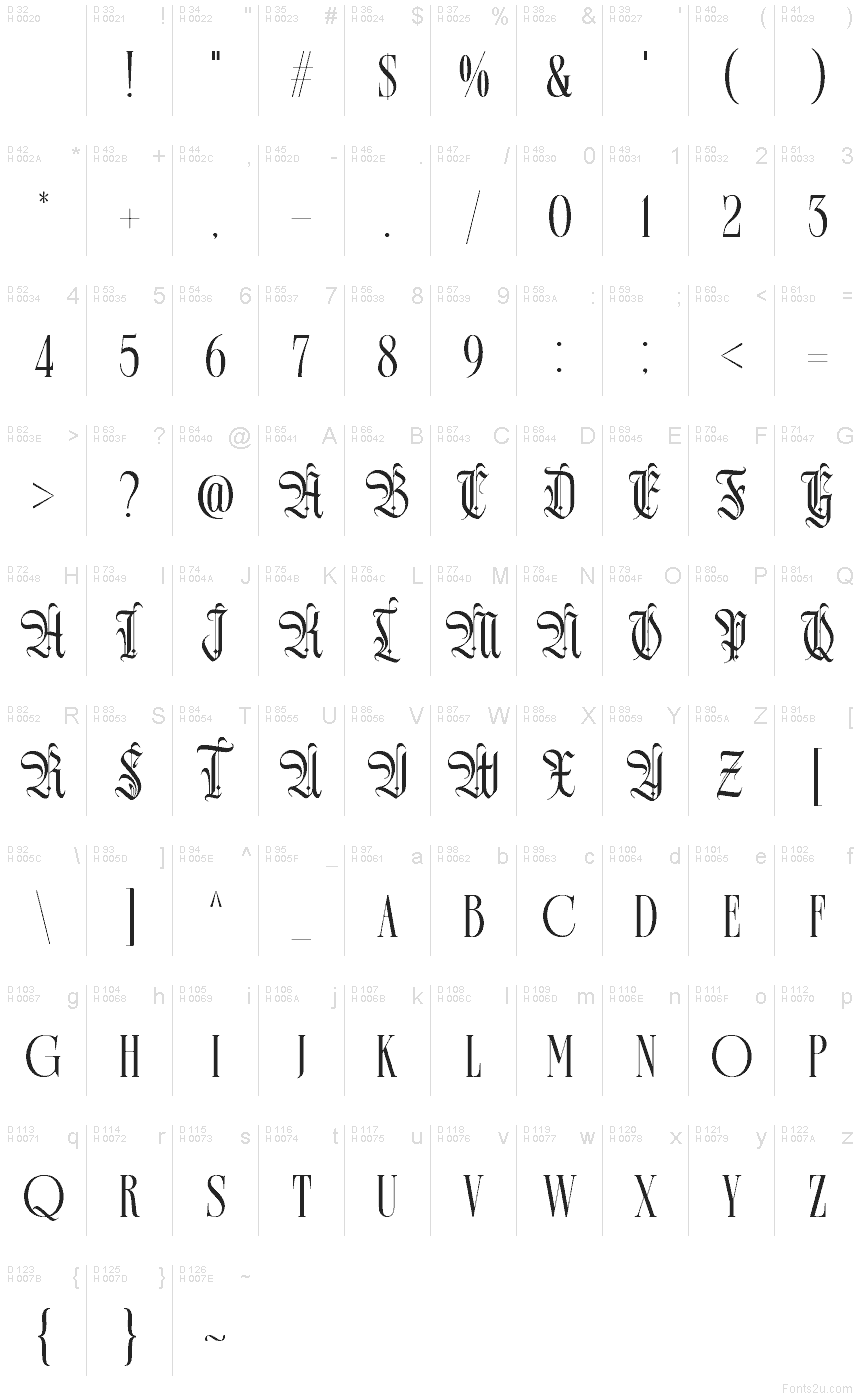
Darkones Regular
Darkones font by Alit Design is a unique blend of gothic influences and ornate details, with dramatic presentation and historical essence in a condensed typeface. Its elegance coexists with darkness in elegant curves and touches that are truly stylized. The font also has some horror or spooky vibes which makes it all the more interesting.